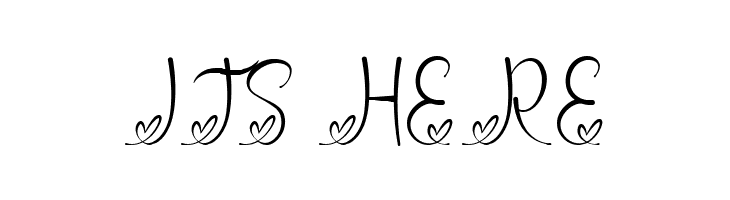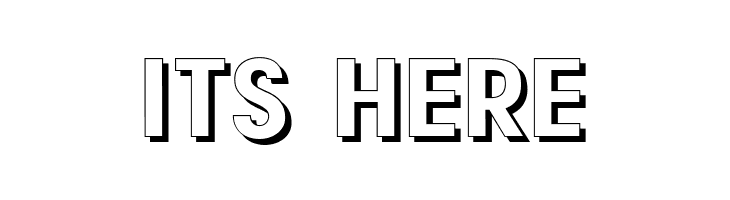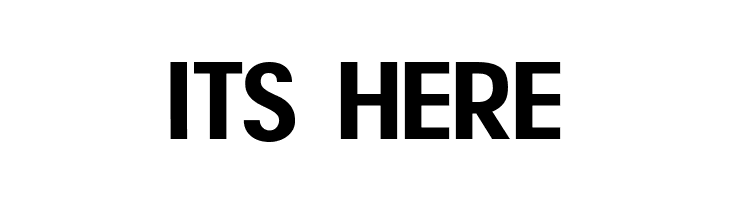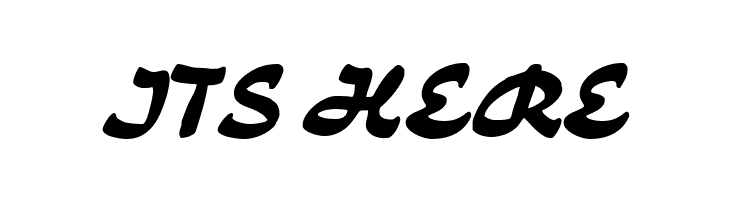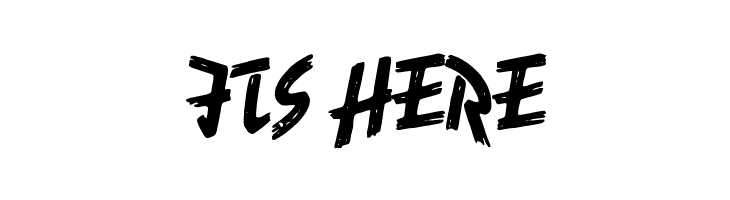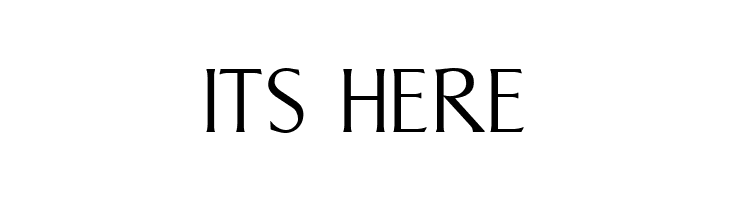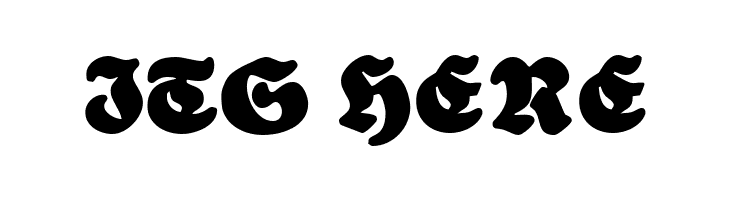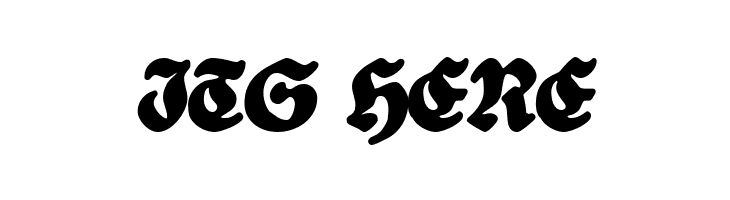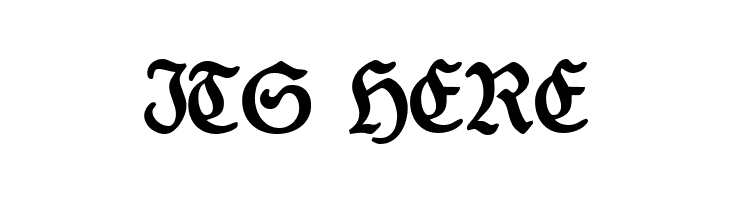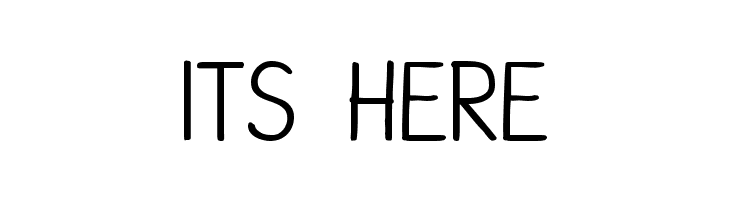
Catilde-SemiBold Font
A bold serif font with a classic yet modern appeal.
Catilde-SemiCondensed Font
A semi-condensed font with high contrast and dynamic style.
CATKakographie Font
A playful handwritten font with rounded edges and a casual style.
CATKurier Font
A bold, cursive font with a dynamic and fluid handwriting style.
Catline FREE Font
A lively and expressive handwritten font with fluid, dynamic strokes.
CatlineFREE Font
A playful, handwritten script font with dynamic strokes and decorative flair.
CATLinz Font
A sophisticated serif font with elegant lines and subtle curves.
Catloekeys Font
A bold, brush-style font with dynamic, hand-painted strokes.
Catlove Font
A whimsical script font with cat ear motifs and a playful, handwritten style.
catman Font
A sleek, modern font with thin, elongated letterforms and a minimalist design.
CatMeow Font
A playful, hand-drawn sketch-style font with a textured appearance.
CATNeuzeit Font
A bold, modern sans-serif font with excellent legibility and versatility.
CATNeuzeitSchatten Font
A bold, geometric sans-serif font with a distinctive shadow effect.
CATNorth Font
A modern, geometric sans-serif font with bold, clean lines and a consistent structure.
CATNorthLicht Font
A modern, geometric font with a hollow, outlined style.
CATNorthLicht-Bold Font
A bold, geometric sans-serif font with a modern outline style.
CATNorthShadow Font
A bold, geometric font with a three-dimensional shadow effect.
CatPaw Font
A playful, bold font with paw print accents, perfect for fun and creative projects.
CATProfessorKrauseFraktur Font
A classic Blackletter font with ornate, angular letterforms and a medieval manuscript feel.